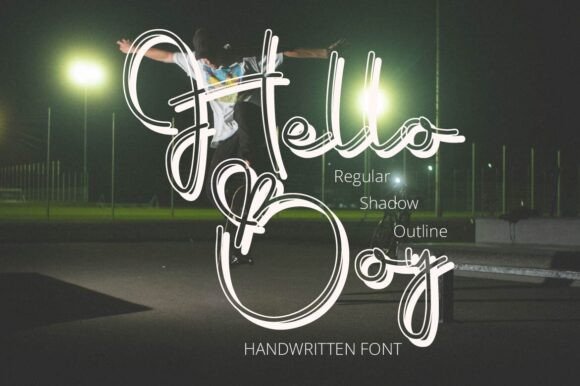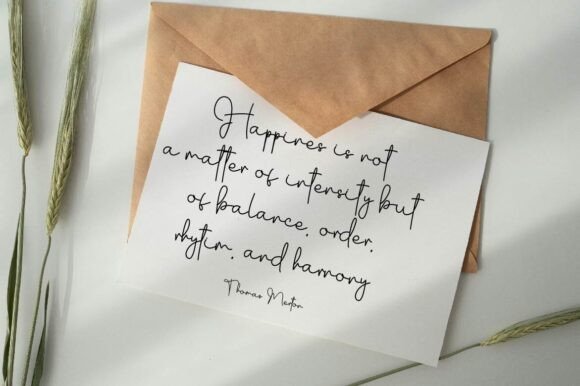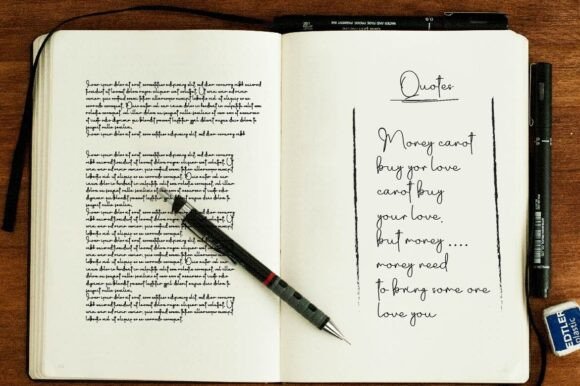
Hello Boy Font
About the Hello Boy Font
Explore the possibilities with Hello Boy Font, a font that offers both beauty and functionality. Say hi to Hello Boy — a modern handwritten font with an effortlessly cool vibe. With its tall, thin letterforms and playful curves, this font delivers a casual yet confident look that’s perfect for youth-inspired designs, lifestyle branding, or standout social media posts.
Hello Boy Font excels in headlines, short-form text, and logos where its casual confidence shines. It’s ideal for projects targeting a young, trendy demographic—think apparel brands, social media campaigns, or music festival posters. Avoid using it for body copy or lengthy text; its thin strokes can reduce readability in extended passages.
Pairing Hello Boy with a clean sans-serif like Open Sans or a geometric sans-serif like Futura adds a touch of modern sophistication, balancing its playful energy. For a warmer feel, consider pairing it with a classic serif like Garamond or a slightly more informal script font like Great Vibes, but keep the script usage minimal for optimal legibility.
The overall personality of Hello Boy is youthful, bold, and friendly, yet maintains a level of sophistication. It’s a font that conveys approachability without sacrificing style.
Hello Boy Font Usage Examples
Hello Boy Font Example